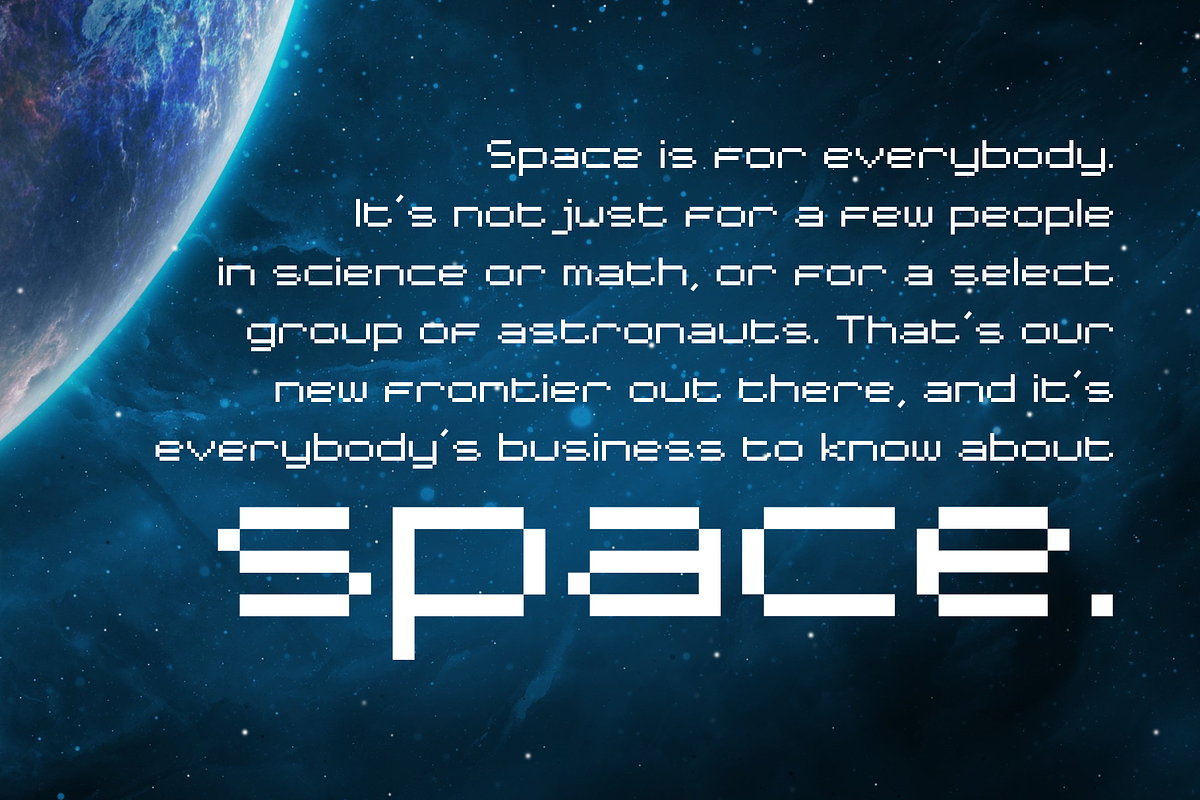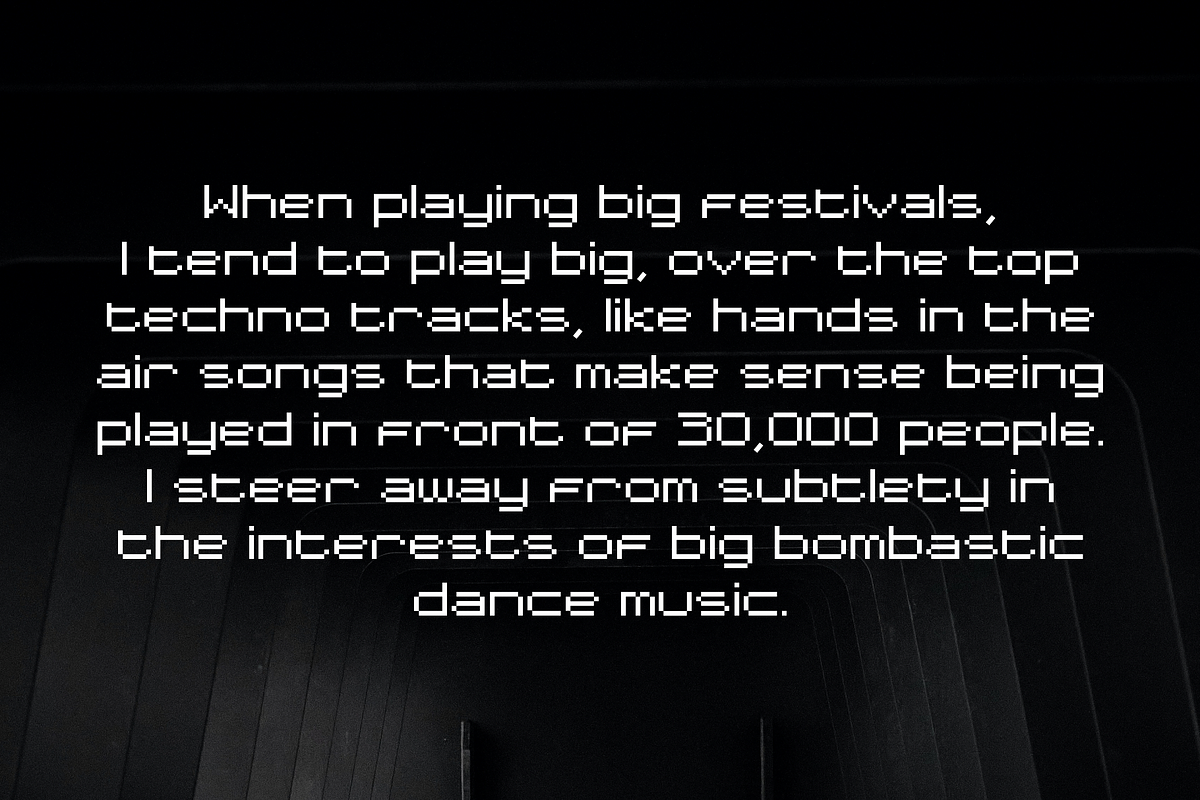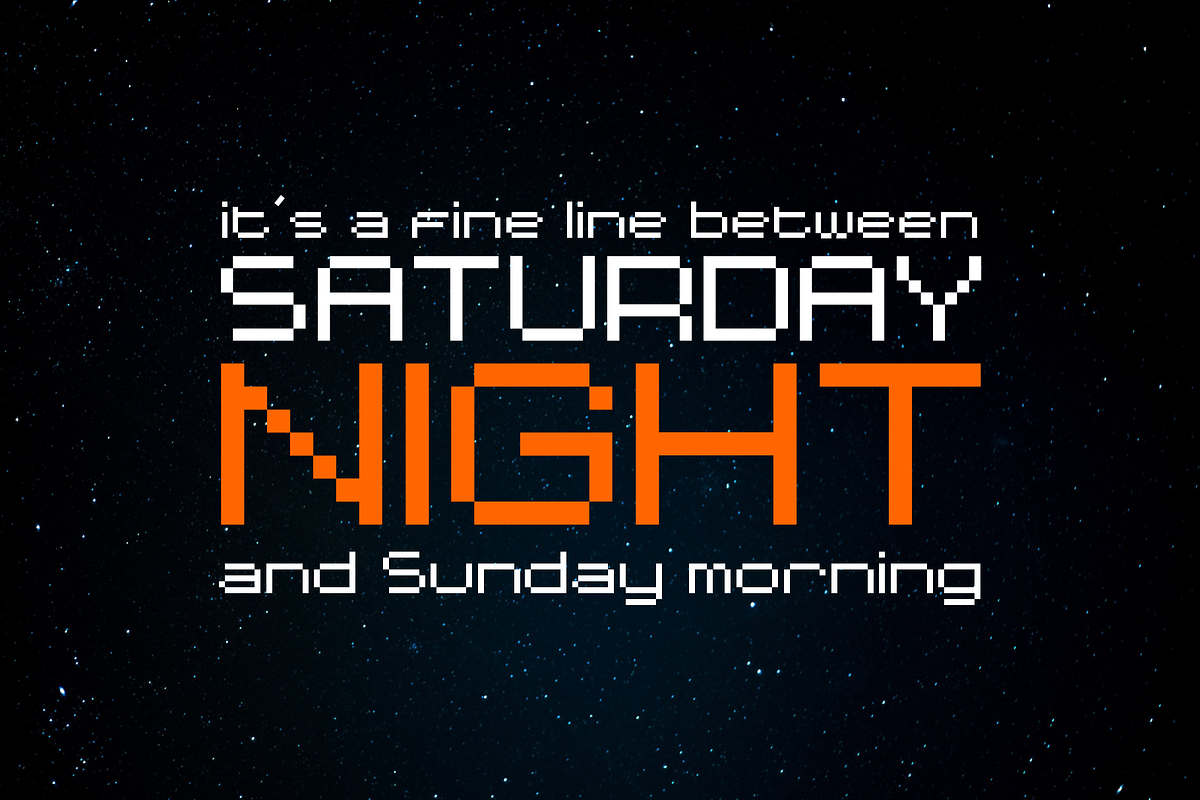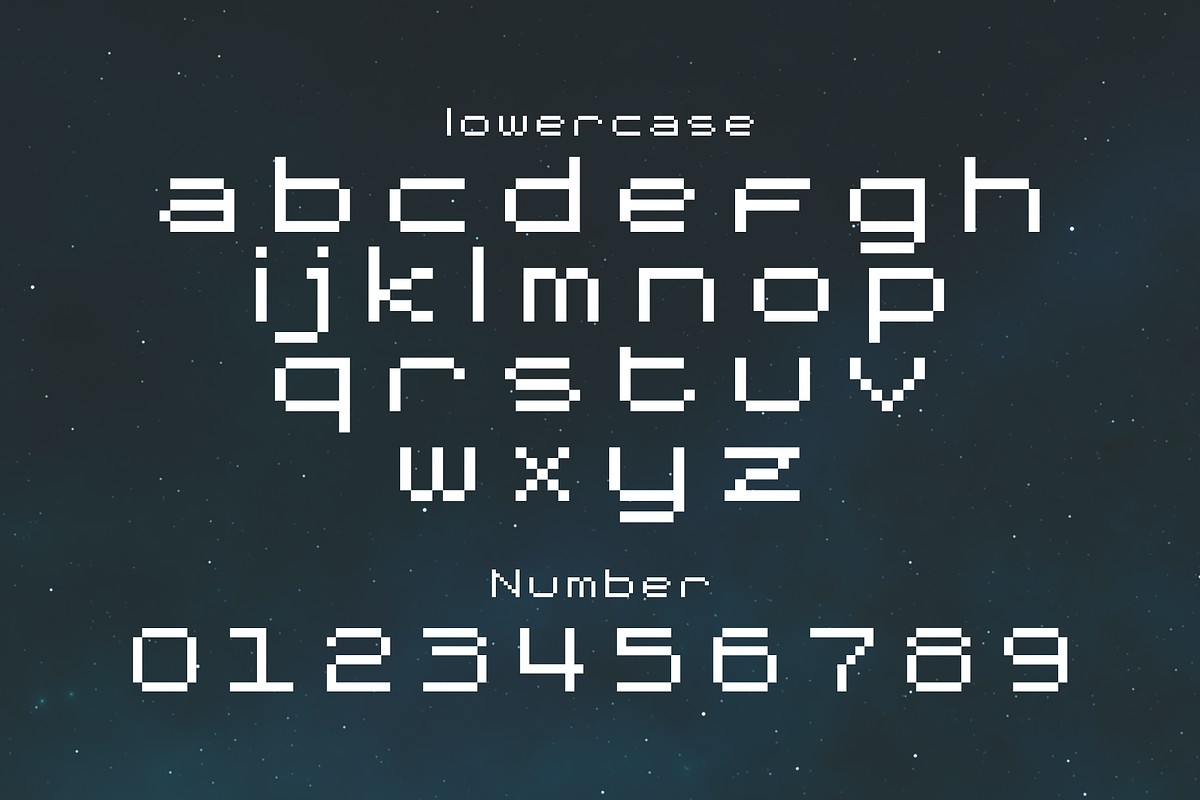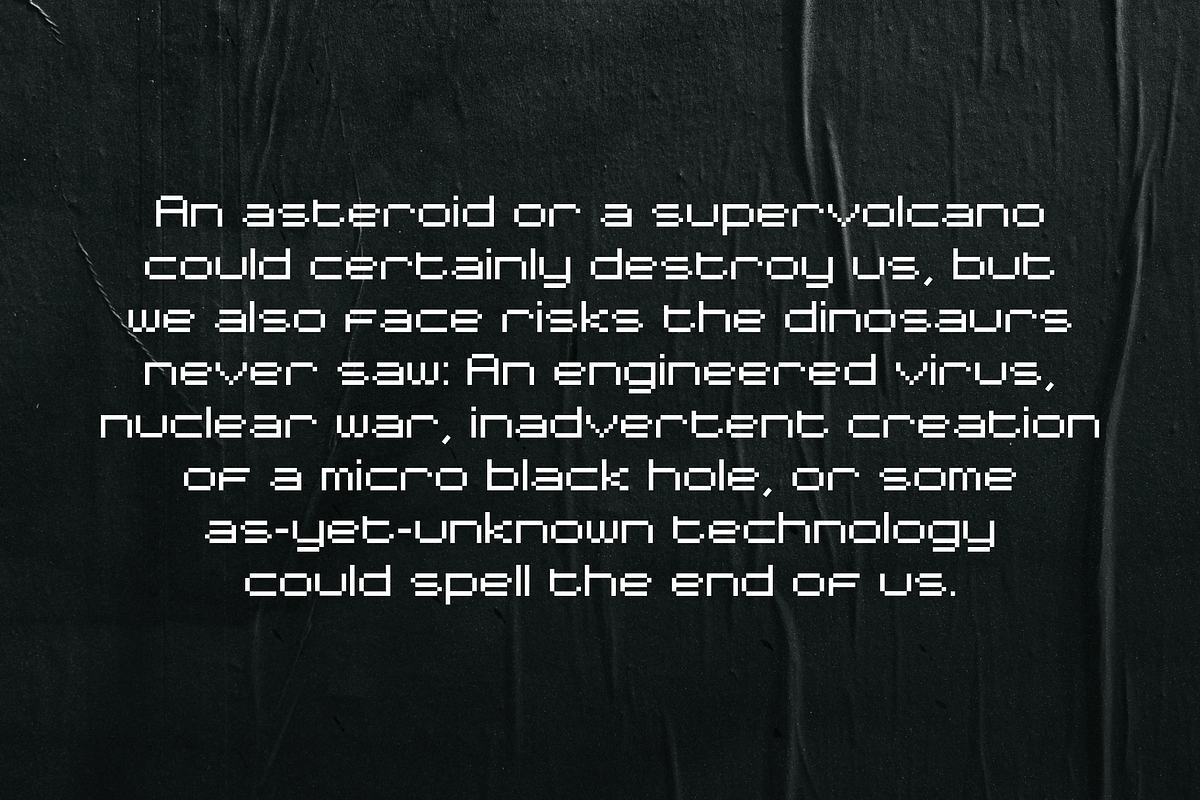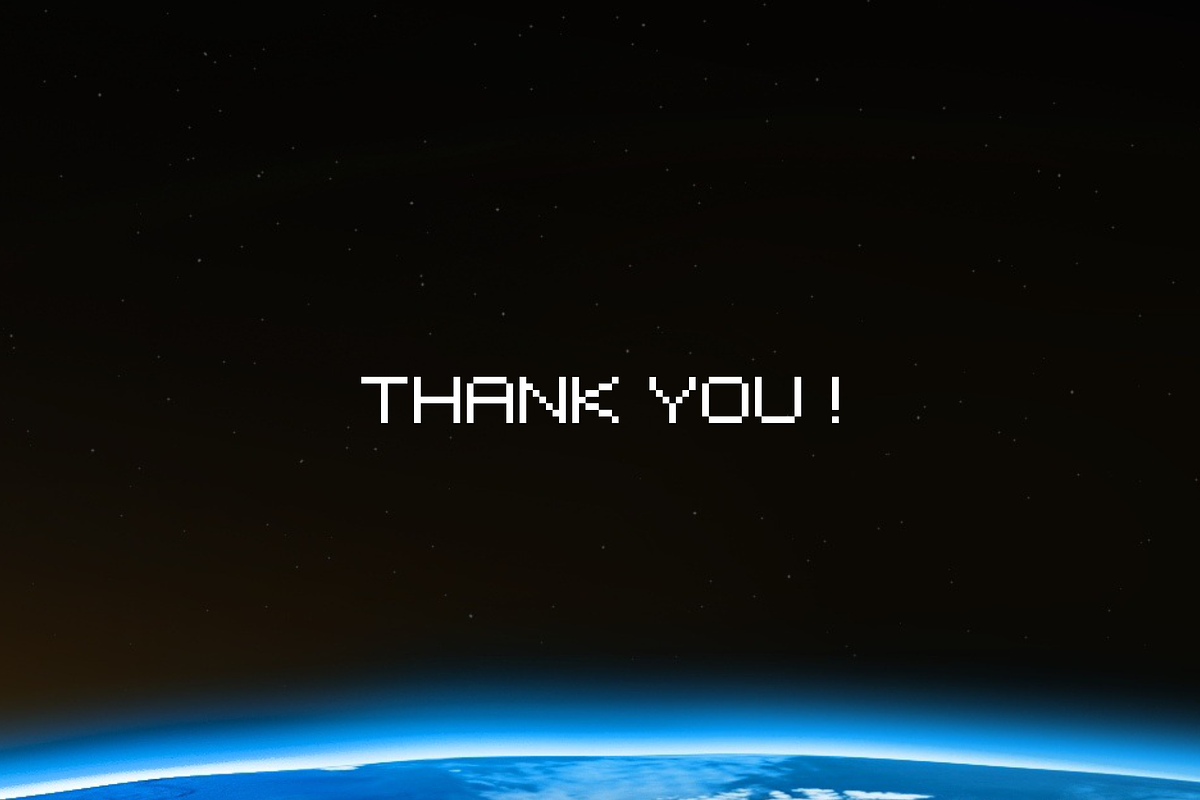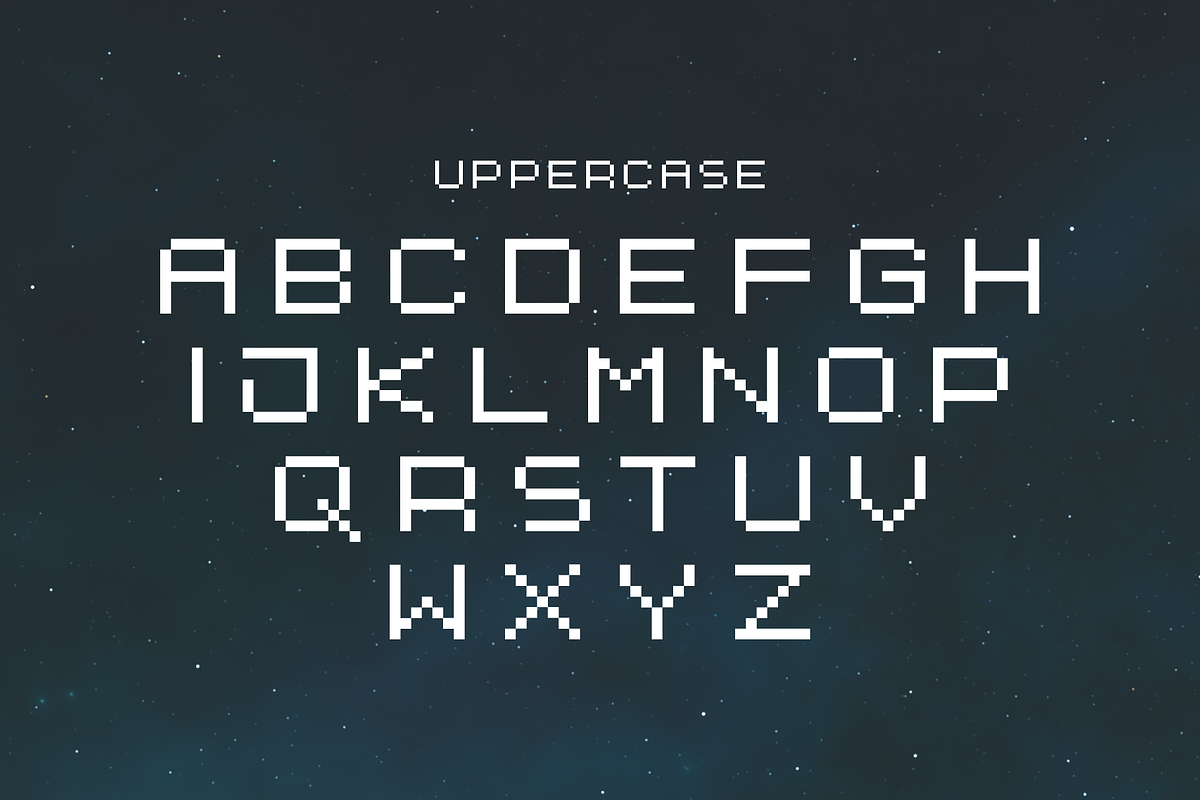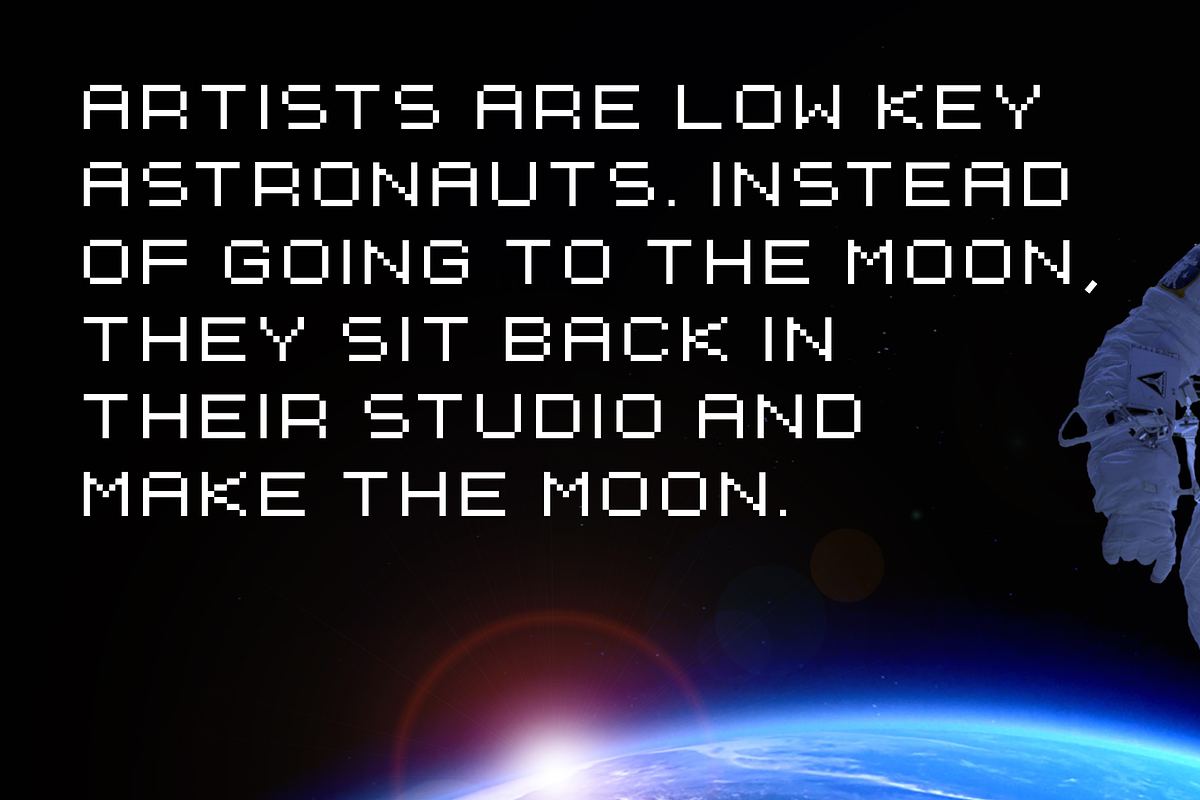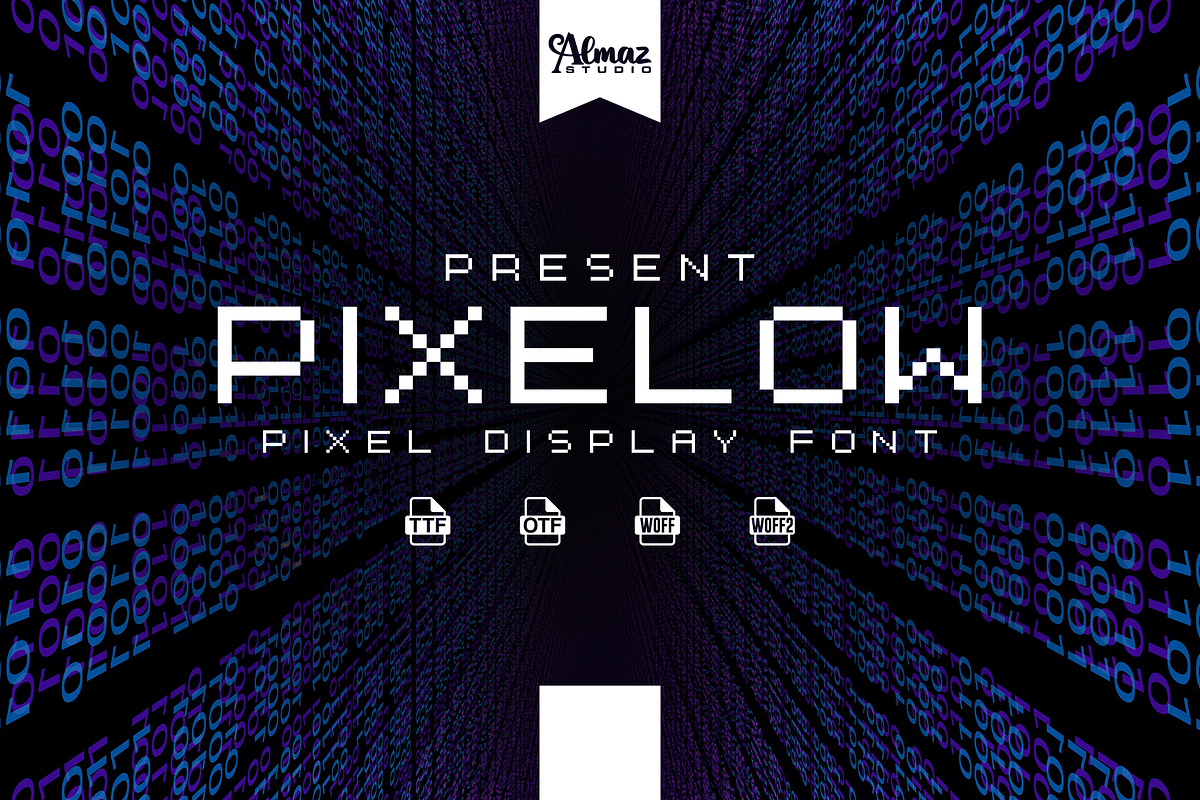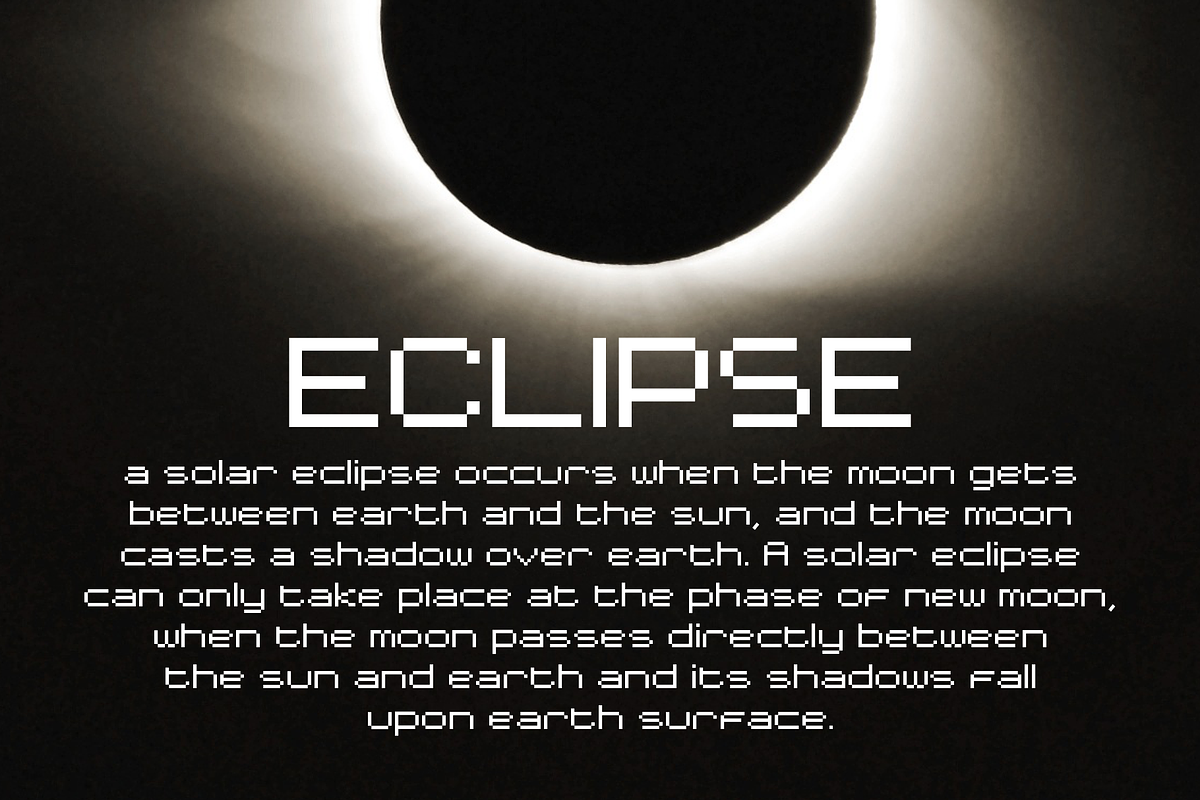
Pixelow
Introducing a new pixel typeface, Pixelow designed by Almaz Studio™. Pixelow is a vintage display typeface, They pair well together and look great on games with pixel or vintage style, pixel art, movie tittle, eBook, t-shirt gaming, poster, game text, cover, logo, branding, social media post, advertising and many more!. Pixelow is a trendy pixel font inspired by a popular game from the 80s. This font will elevate any of your design. Pixelow it simulates the configuration of individual pixels into letters. Thus, a font emerged which, regardless of size, can be recognized by the composition of a few individual pixels.